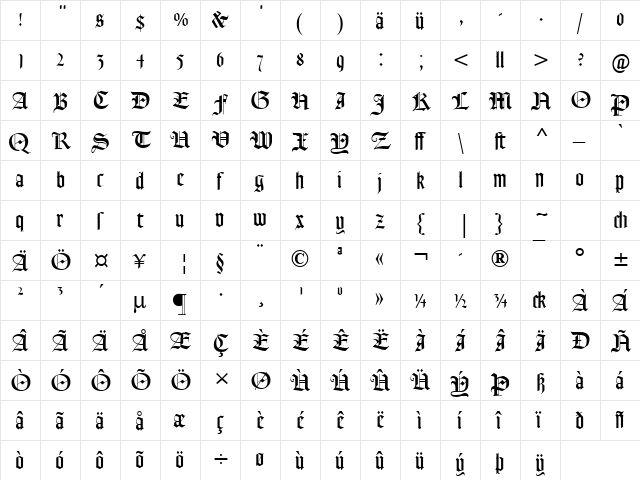
Goudy Text MT Dfr Regular Font Preview
Goudy Text MT Dfr Regular
Goudy Text MT Dfr Regular Font Details
Design Context for Goudy Text MT Dfr Typeface
Goudy Text MT Dfr is a composed and adaptable typeface that performs quietly and consistently across a wide range of design contexts.